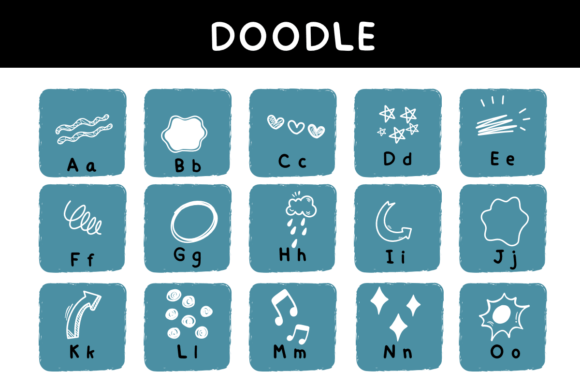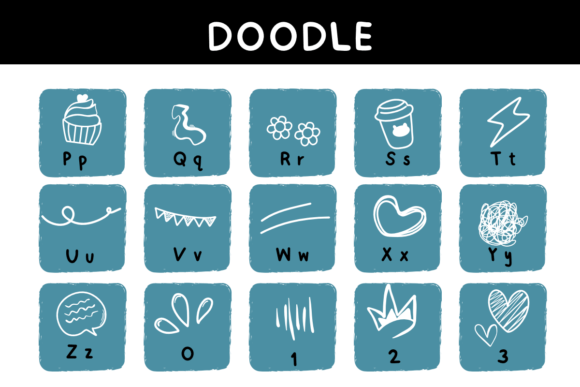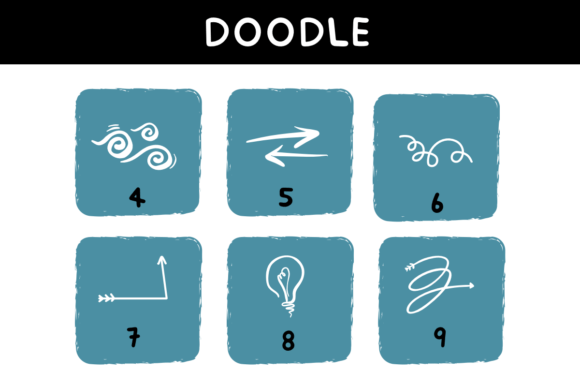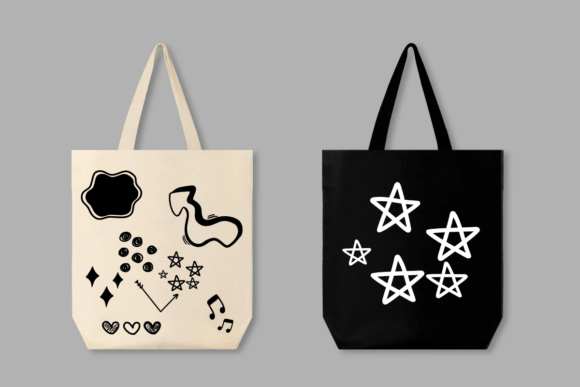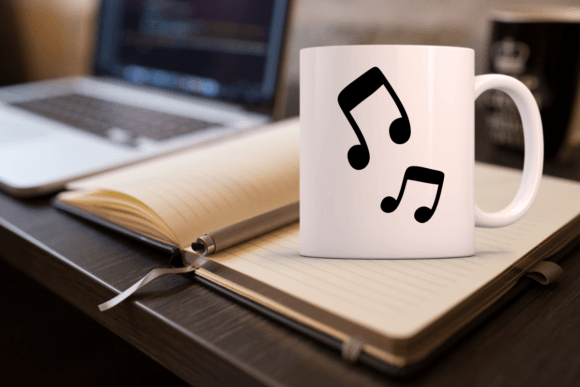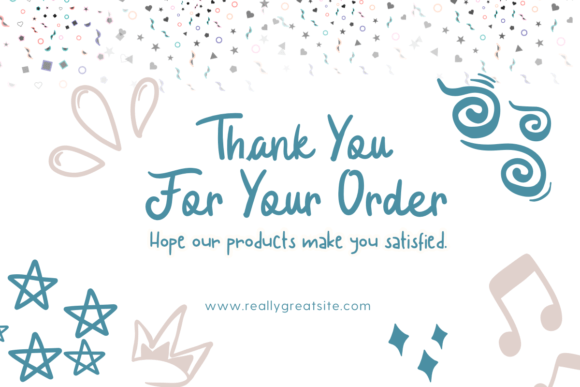
The Doodle Font: A Sketchy Delight for Creative Projects
The Doodle font is a dingbats font with a theme that screams sketch style. Its imperfect lines and irregular shapes give it a charming, hand-drawn feel that’s perfect for creative projects. In this article, I’ll share my experience with the Doodle font, its features, and how to make the most of it in various design platforms.
- ✨ Unique and quirky design that’s sure to grab attention
- ✅ Perfect for creative projects that require a personal touch, such as wedding invitations, DIY crafts, and decorations
- 🎨 Highly versatile and can be used for logos, branding, and packaging
- 👍 Easy to read and understand, despite its sketchy style
While the Doodle font is amazing, it’s not without its limitations. ⚠️ Some users might find that the font is not suitable for body text, as it can be a bit tricky to read in large blocks. Additionally, the font might not work well with very small font sizes, as the details might get lost.
🤔 Another thing to consider is that the Doodle font is a dingbats font, which means it’s primarily designed for decorative use. If you’re looking for a font for a long-form text, you might want to pair it with a more traditional font.
The Doodle font was inspired by the playful and artistic style of doodling. Its creator, a freelance designer, wanted to capture the essence of hand-drawn art and bring it to digital design. The font is perfect for designers who want to add a personal touch to their projects.
| Author | Bee piyanuch |
Q: What is the Doodle font best used for?
A: The Doodle font is best used for creative projects that require a personal touch, such as wedding invitations, DIY crafts, and decorations.
Q: Is the Doodle font suitable for body text?
A: While the Doodle font is easy to read, it’s not recommended for body text. It’s best used for headings, titles, and decorative text.
Q: Can I use the Doodle font with other fonts?
A: Yes, the Doodle font can be paired with other fonts to create a unique and interesting design. Experiment with different font combinations to find the perfect match.